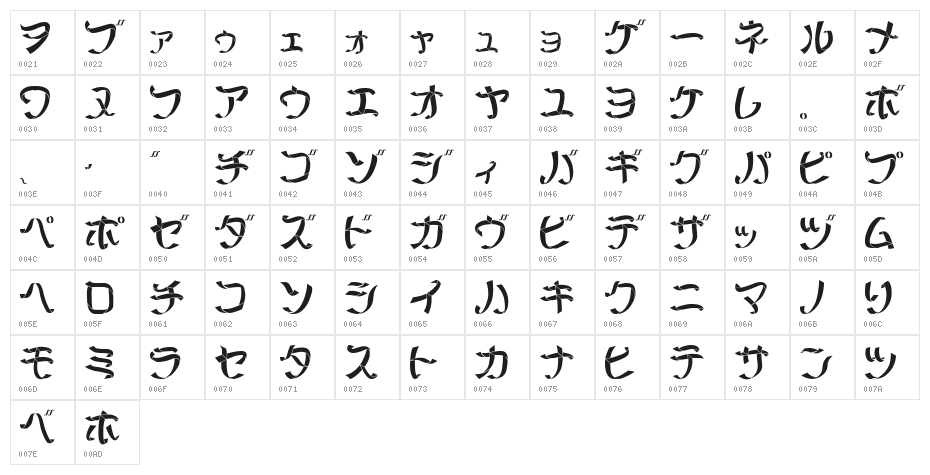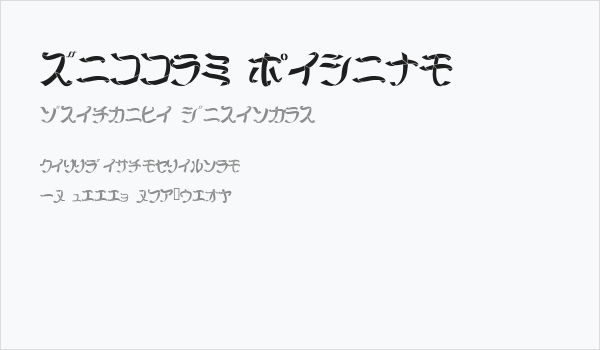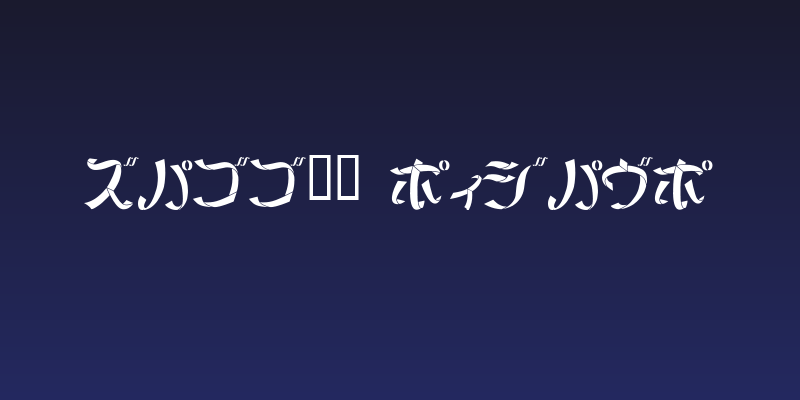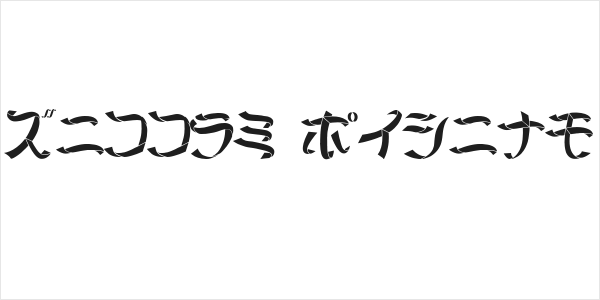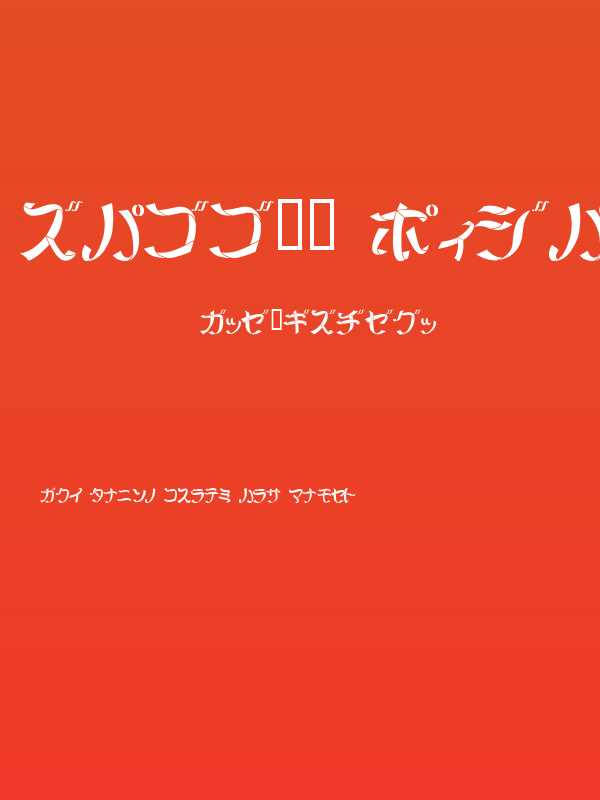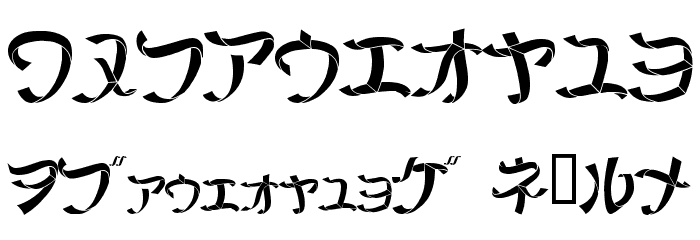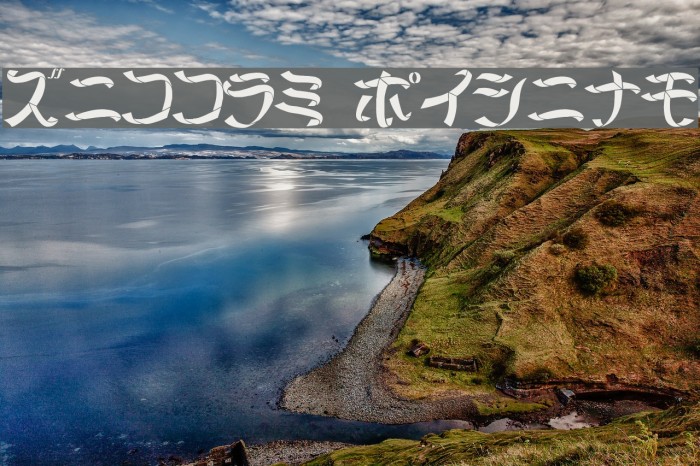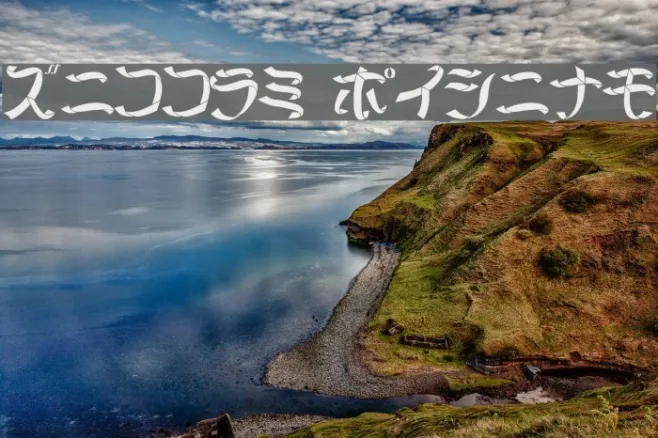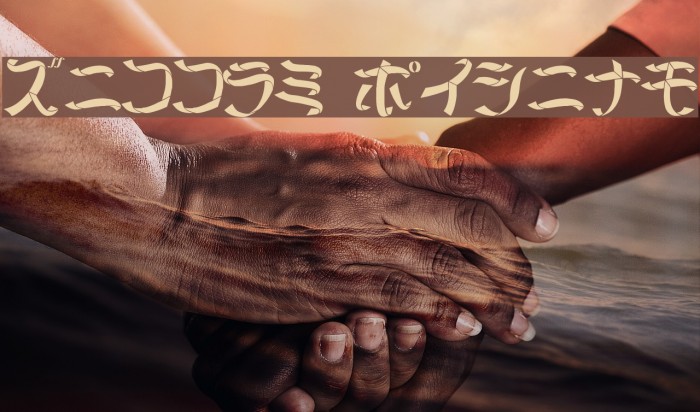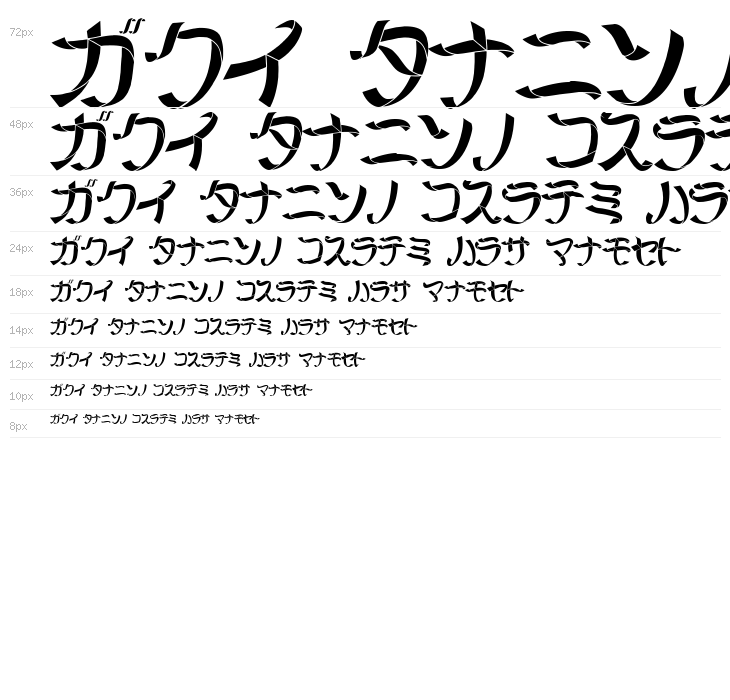
Ribbon Medium Font
Ribbon Medium Description
This font features a unique and artistic design, characterized by its ribbon-like strokes that create a sense of movement and fluidity. The characters are bold and have a decorative flair, making them stand out with their intricate curves and twists. The style is reminiscent of calligraphy, with a modern twist that adds a playful yet sophisticated touch. The font's distinct appearance is achieved through the use of varying stroke widths and angles, giving it a dynamic and eye-catching look. It is well-suited for creative projects that require a touch of elegance and uniqueness.
| Proposed Projects | Ideal for branding, packaging design, invitations, and artistic posters. |